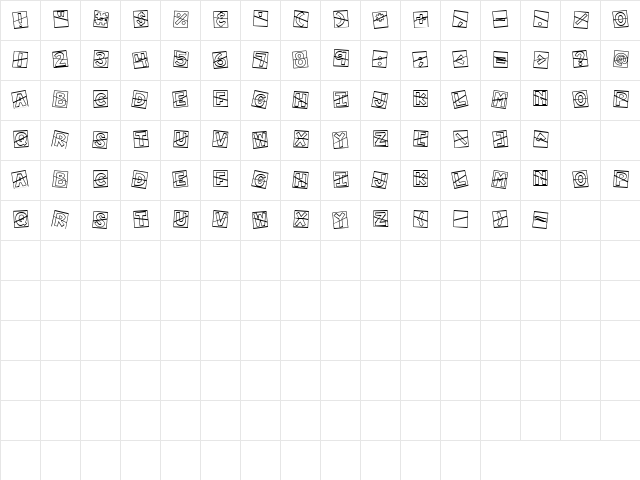
CK Split Box Regular Free Font
CK Split Box Regular
Design Context for CK Split Box
CK Split Box is a composed and adaptable typeface that performs quietly and consistently across a wide range of design contexts.